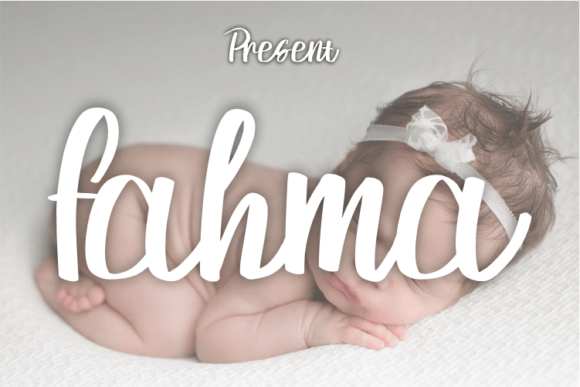
Behold, the Fahma Font, a remarkable script typeface that effortlessly blends simplicity with a modern touch, leaving an indelible impression wherever it adorns. Crafted by the skilled hand of Eric Kusuma, this masterpiece is designed to elevate your creative projects, transforming them into captivating expressions of elegance and luxury.
Fahma Font shines as the perfect choice for those seeking to make a statement with their logos, book and movie titles, and fashion brands. Its captivating curves and stylish strokes bring an allure that commands attention, ensuring your designs stand out from the crowd.
Step into the world of fashion and unveil the limitless possibilities that await you with Fahma Font. Create clothing and magazine designs that exude sophistication and captivate your audience. Embrace the art of typography and let your words dance with grace as you craft inspiring quotes that resonate with your readers.
Fahma Font's versatility extends far beyond the realm of traditional design. Unleash your creativity and explore its boundless potential in digital graphics, social media, and website design. Let Fahma Font be your guiding light as you craft captivating visuals that leave a lasting impression on your viewers.